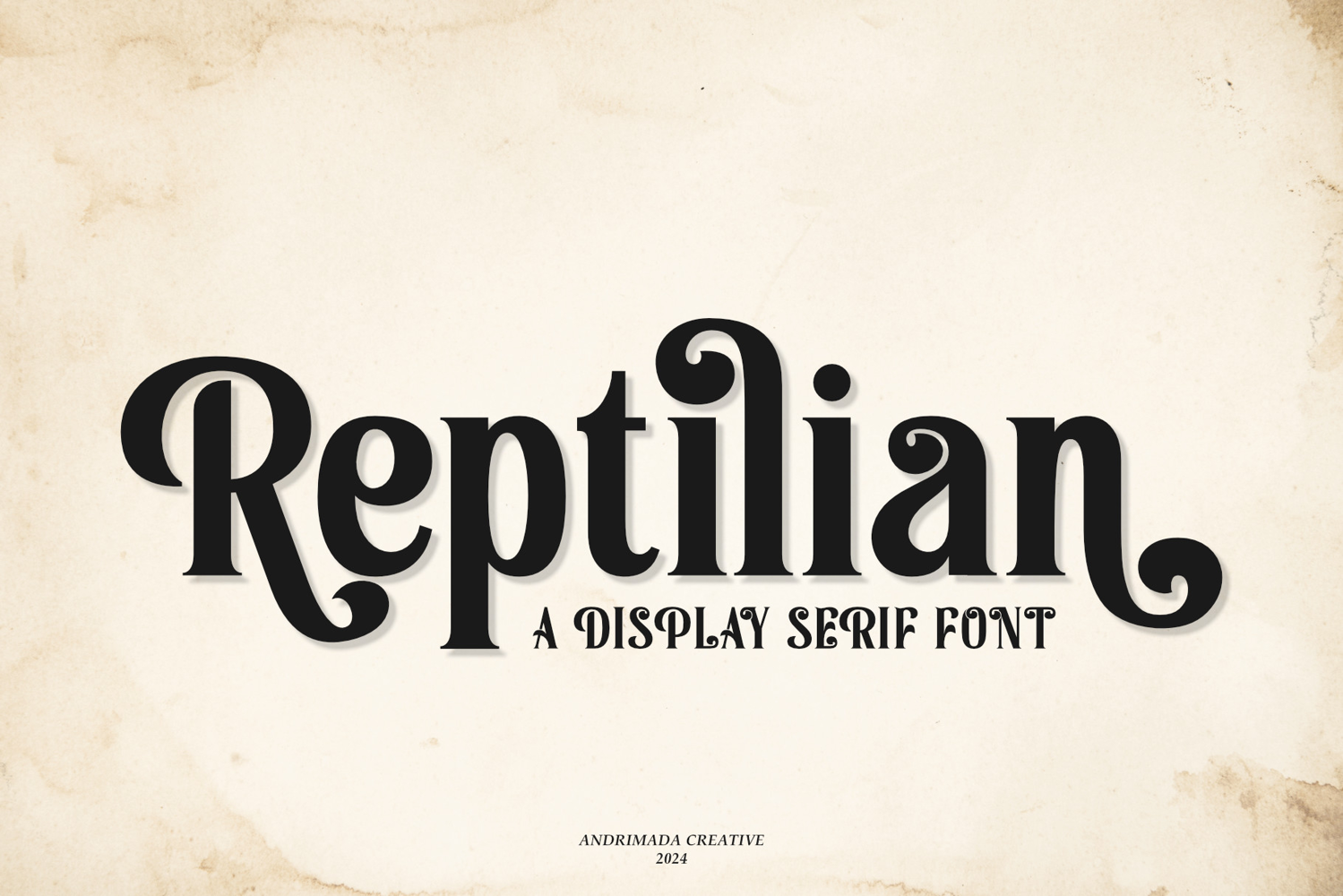
Reptilian | A Unique and Classic Serif Font
Reptilian
Reptilian is a unique and classic serif font that beautifully marries timeless elegance with a distinct retro flair. This font is a perfect fit for a variety of creative projects, including branding, book covers, and fashion, where it effortlessly captures the essence of both vintage and modern aesthetics.
With its refined serifs and subtle, intricate details, Reptilian evokes a sense of nostalgia that adds a touch of classic sophistication to any design. Its characters are crafted with a harmonious balance, ensuring excellent readability while maintaining a stylish, eye-catching appeal. The font's versatility allows it to be both a bold statement piece for headlines and a reliable choice for body text.
Reptilian's charm lies in its ability to be simultaneously elegant and edgy, making it an ideal choice for brands that want to communicate a sense of heritage and quality while still feeling fresh and relevant. Whether you're designing a high-end fashion label or a classic novel's cover, Reptilian provides a powerful and memorable visual identity that stands out from the crowd.